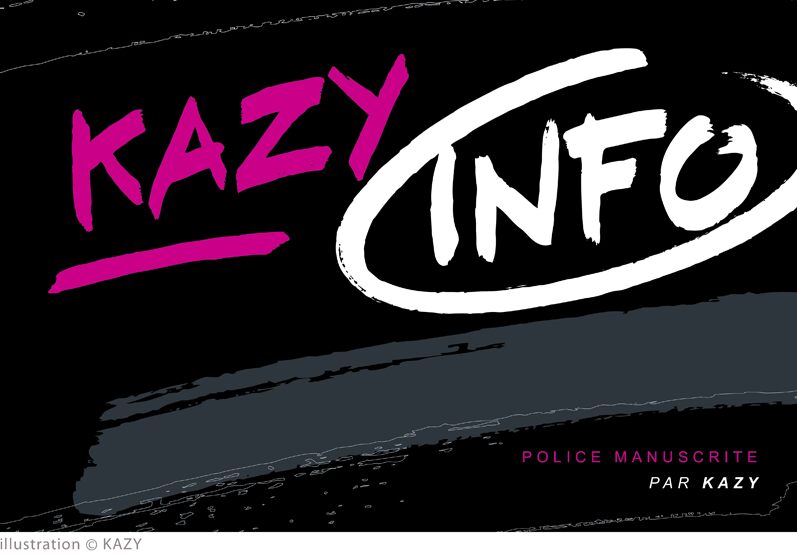
KAZYinfo
KAZYinfo is a handwritten font with accents designed by Emmanuel Didier made with a flat point marker pen with a slightly brushed effect.
This font will go perfectly with a wide range of designs by reinforcing their dynamism. You can also take advantage of some symbols to animate your creations.